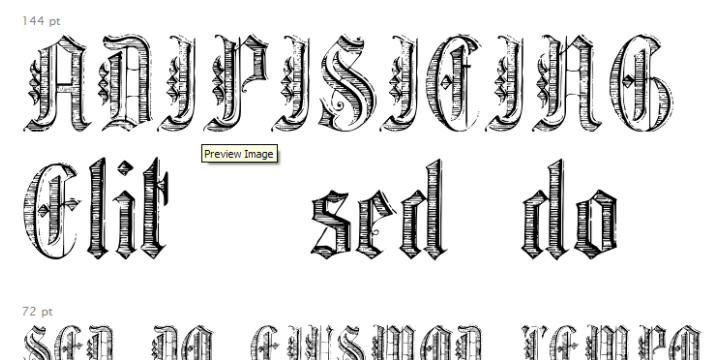
Gothic Trashed Font is ideal for dark metal band logos, horror movie titles, gothic nightclub promotions, underground music venues, apocalyptic gaming graphics, industrial music branding, dark fantasy book covers, heavy metal merchandise, gritty urban art projects, and alternative fashion marketing. This intense typeface excels in applications where dark rebellion and gothic intensity need to be communicated with raw authenticity and underground edge that embodies the essence of gothic subculture and the uncompromising spirit of alternative artistic expression.
What makes Gothic Trashed Font exciting is its extraordinary ability to embody the raw power and dark rebellion of gothic culture through its heavily distressed letterforms that seem to emerge from the shadows of underground venues and the gritty streets of alternative music scenes. The font captures the essence of gothic defiance with its deliberately damaged construction and anarchic proportions that suggest the deliberate destruction of conventional beauty in favor of authentic emotional expression. Its aggressively distressed character details and rebellious personality create an atmosphere of unapologetic authenticity that resonates with gothic communities, alternative artists, and underground musicians who reject mainstream aesthetics in favor of genuine emotional darkness and artistic rebellion.
The Gothic Trashed Font family typically includes Regular and Bold weights, each maintaining the signature distressed characteristics and gothic intensity. Some versions offer heavily damaged variants that amplify the destroyed aesthetic, alternative character sets with enhanced gothic elements, and special treatments that simulate extreme wear and tear. The family may also include outline styles that emphasize the damaged structure and condensed variants that intensify the claustrophobic gothic atmosphere for maximum underground impact in alternative applications.
Whether you're creating underground music brands, gothic entertainment materials, or alternative artistic communications, Gothic Trashed Font Free Download delivers the uncompromising darkness your gothic projects demand. Its trashed character and rebellious styling make it an essential tool for metal bands, gothic venues, and alternative artists working in underground music, dark entertainment, and gothic subculture sectors where authentic rebellion and uncompromising darkness are fundamental to establishing credibility within communities that value genuine emotional expression over commercial appeal.